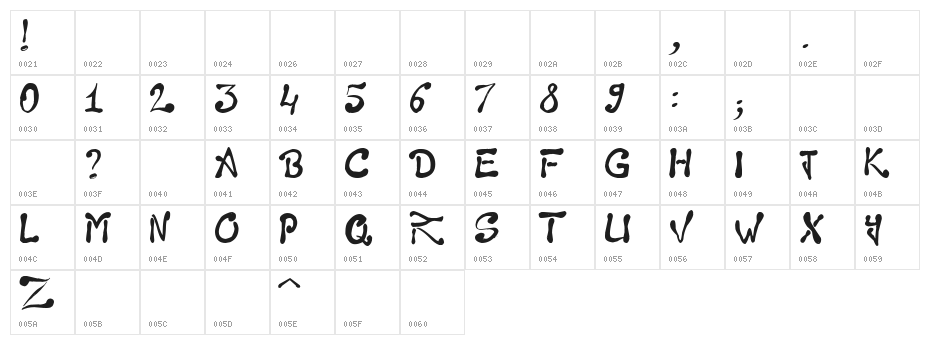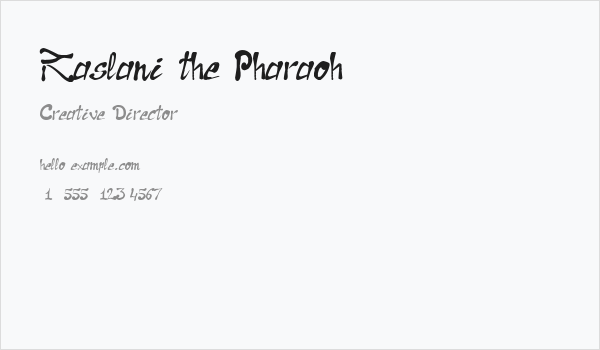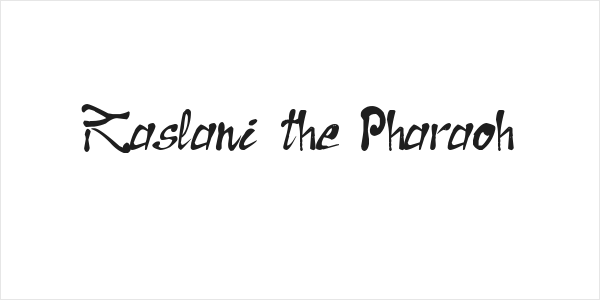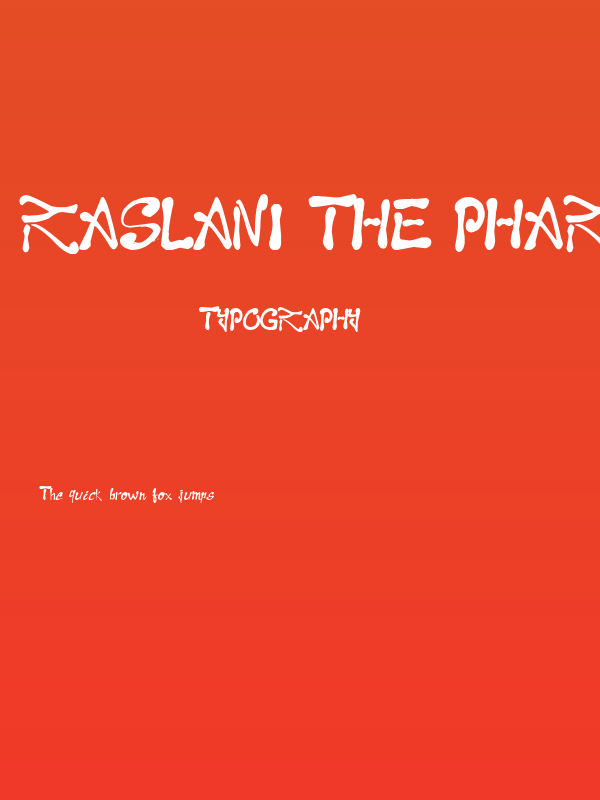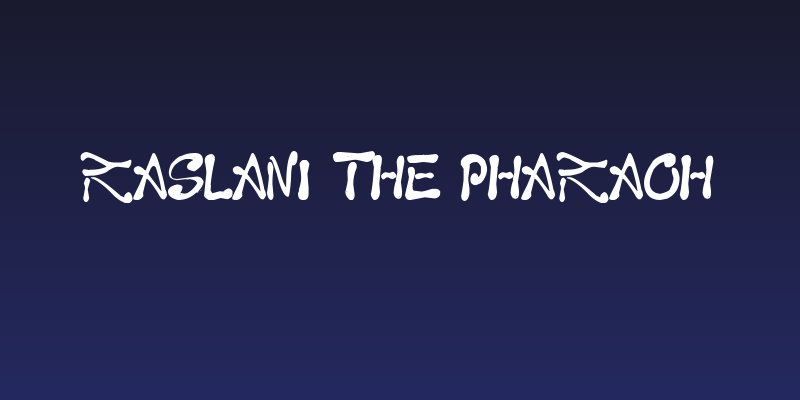
Raslani the Pharaoh Font
Raslani the Pharaoh Description
This font exhibits a bold and dynamic style with a distinctly hand-drawn appearance. The characters are crafted with a brush-like texture, giving them an artistic and expressive flair. The uppercase letters are bold and slightly irregular, adding to the font's unique charm. Lowercase letters maintain this artistic quality, with some letters featuring exaggerated strokes and curves. The numerals are consistent with the overall style, offering a playful yet bold presence. Special characters are creatively integrated, maintaining the font's cohesive look. The overall impression is one of creativity and expressiveness, making it suitable for projects that require a strong visual impact.
| Overall Style | Artistic, Expressive |
| Use Case | Headlines, Posters, Branding |
| Proposed Projects | Ideal for artistic projects, posters, branding, and any design requiring a bold, expressive typeface. |